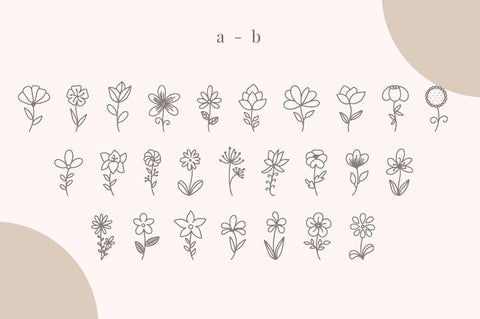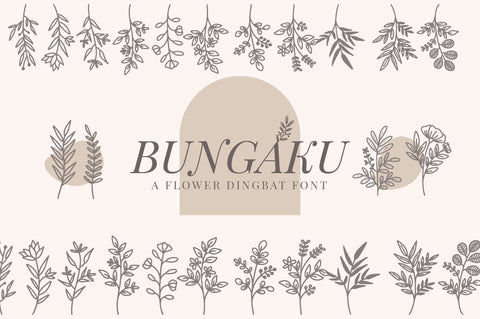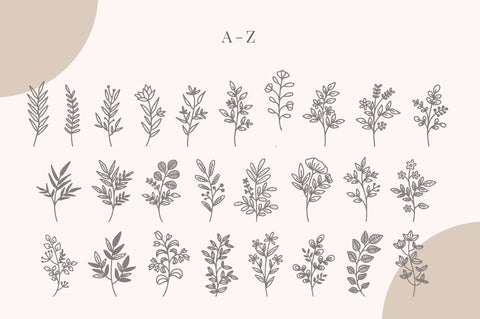
Bungaku - Dingbat Font
My flower is a beautiful and elegant dingbat font. font with glyphs clipart leaves and beautiful flowers. This font is very compatible. This font is multipurpose. and also suitable for food products, logos, flower shops, plantations, agriculture, etc.